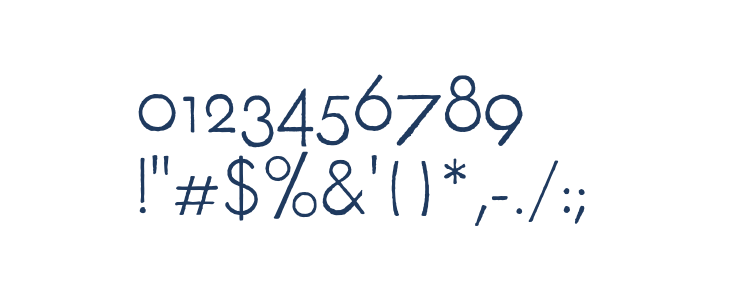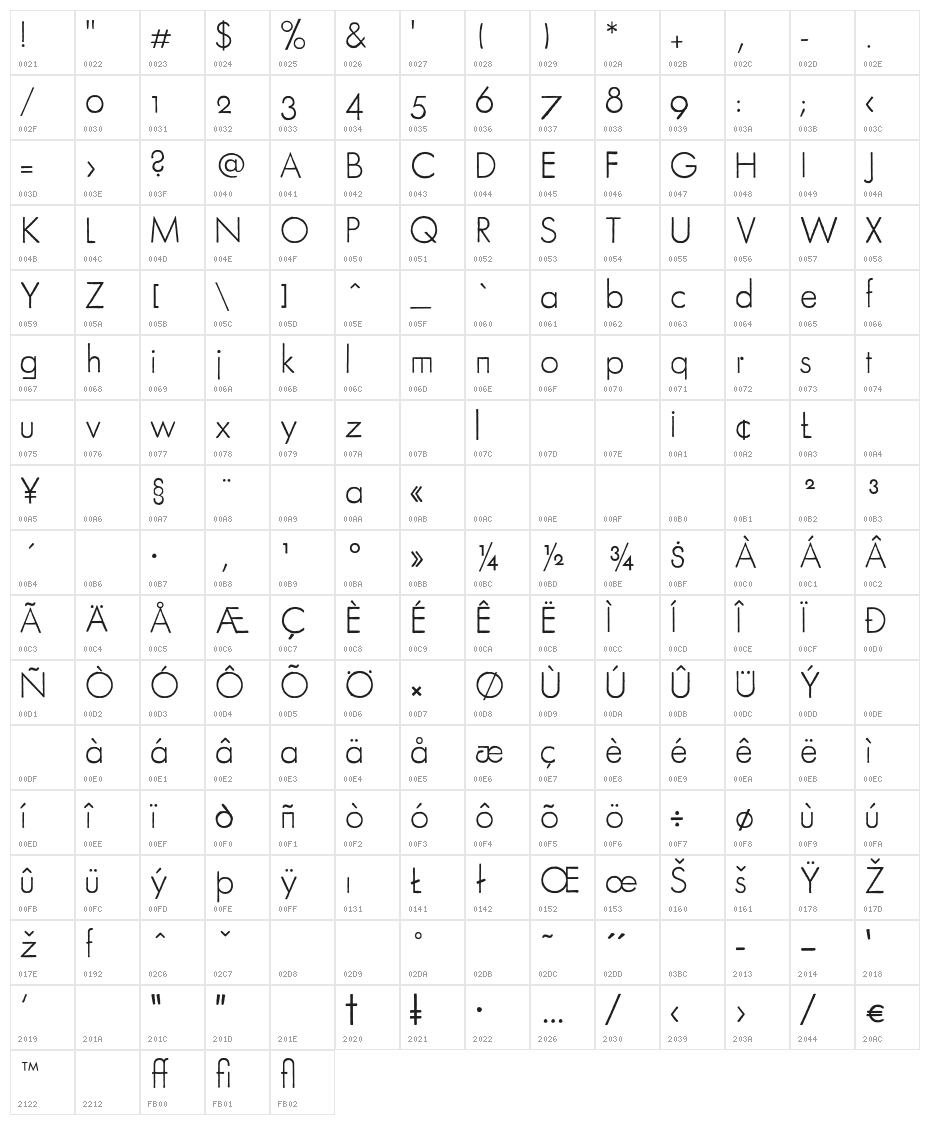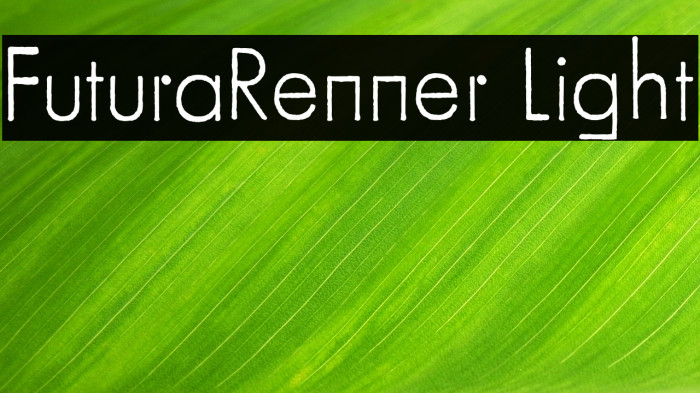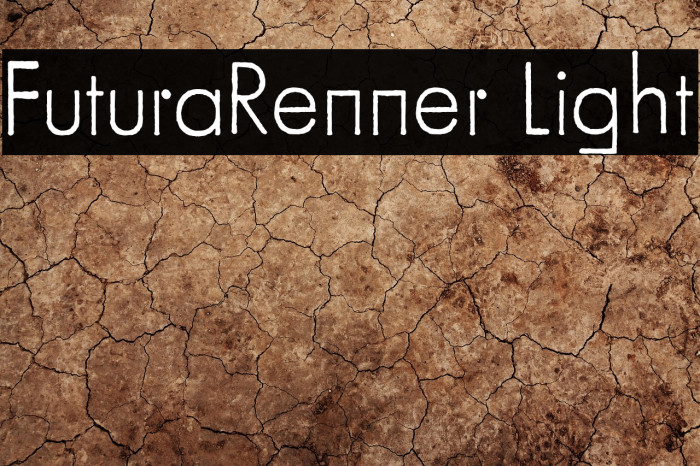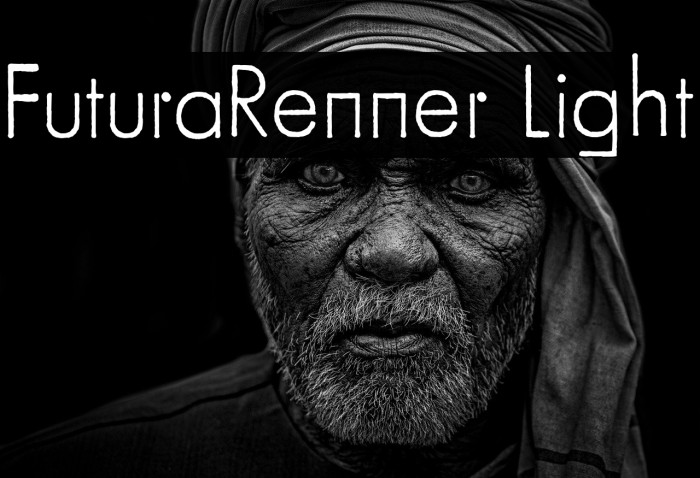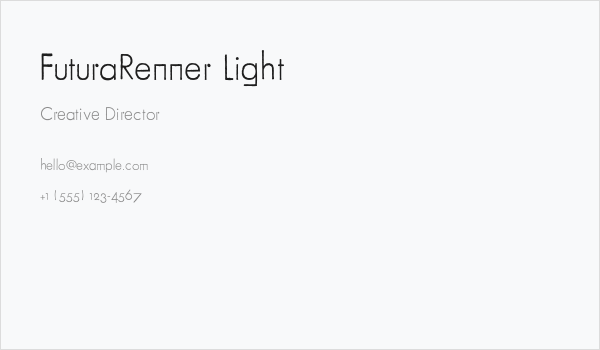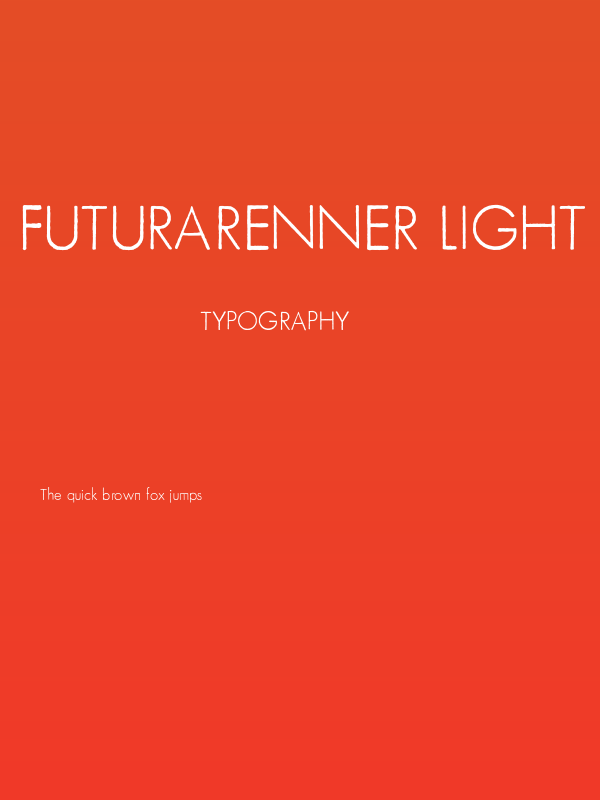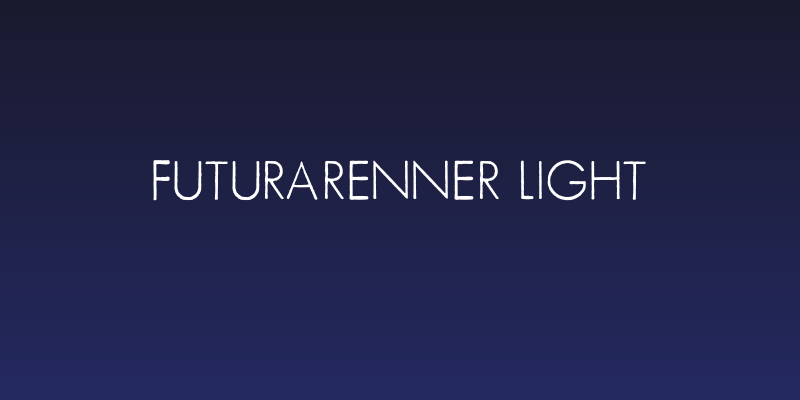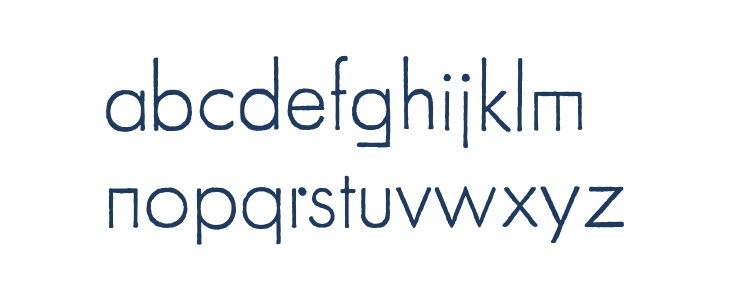
FuturaRenner Light Font
FuturaRenner Light Description
This font features a clean, geometric design with a modern aesthetic. The characters are constructed with even strokes and a consistent line weight, giving it a balanced and harmonious appearance. The uppercase letters are tall and slightly narrow, while the lowercase letters maintain a similar geometric structure, enhancing readability. The numerals are clear and distinct, matching the overall style of the alphabet. Special characters are well-integrated, maintaining the font's cohesive look. This font's simplicity and clarity make it versatile for various design applications.